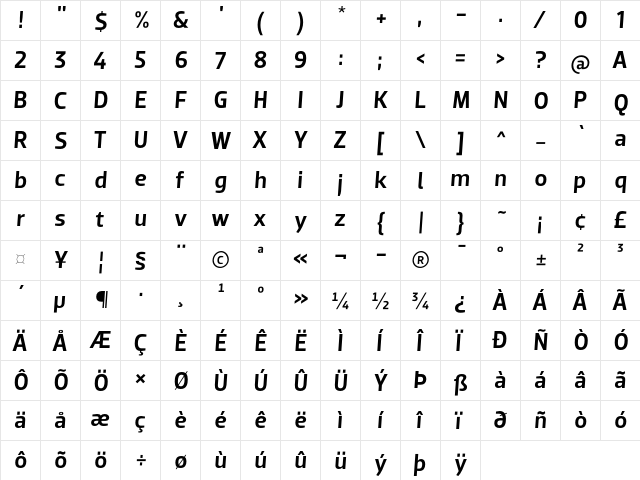
Dobra Medium Italic
| Foundry | Dino dos Santos _DSType |
| Designer | Dino dos Santos |
Design Context for Dobra Typeface
Dobra offers clean, dependable letterforms without strong stylistic allegiance, making it a practical choice for designers who need flexibility. The slanted form adds forward momentum and visual energy.
Pro Tip: Try Dobra for annotation and caption copy alongside an upright companion — the contrast in angle creates a dynamic but ordered typographic system.